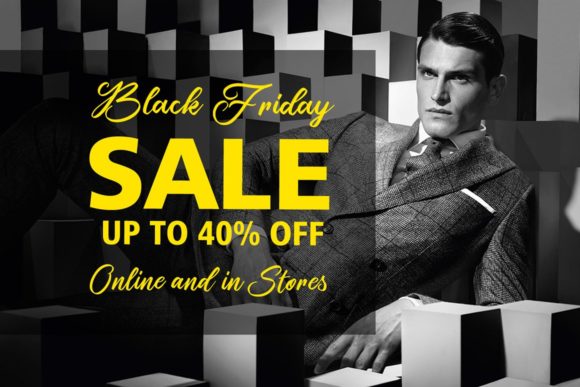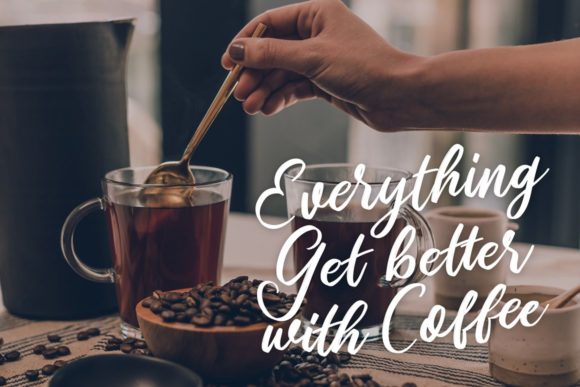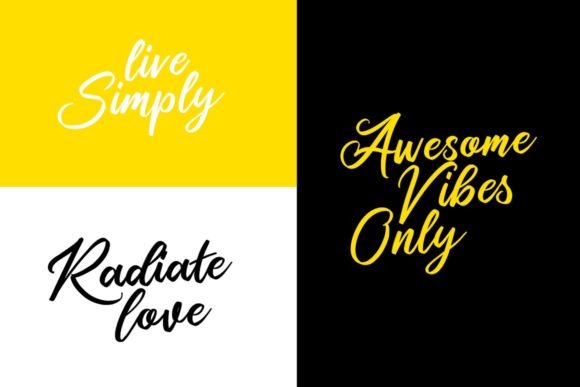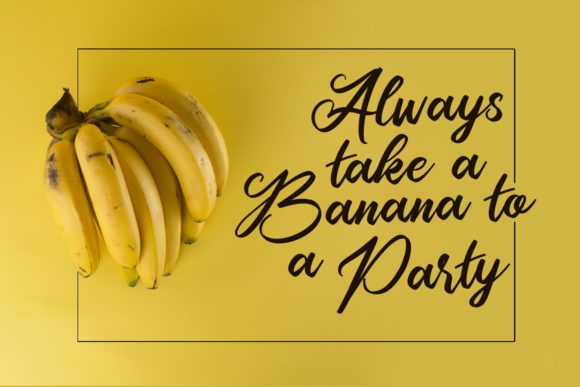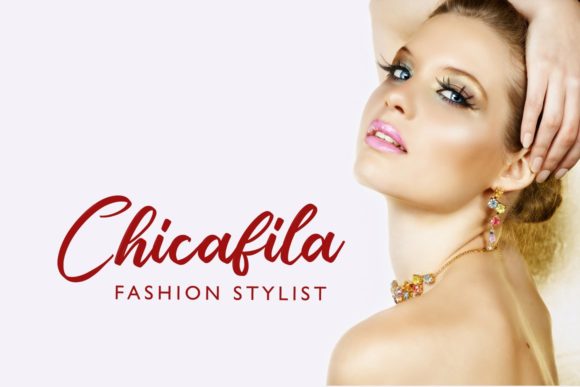
Introduction to Alabasta Font
Alabasta is an elegant handwritten font.
It has beautiful and well balanced characters and as a result, it matches a wide pool of designs Add it to your most creative ideas and notice how it makes them come alive.
Alabasta Font offers exceptional quality and versatility, making it a valuable addition to your design toolkit. Whether you’re creating for personal projects or commercial use, Alabasta Font delivers professional results.